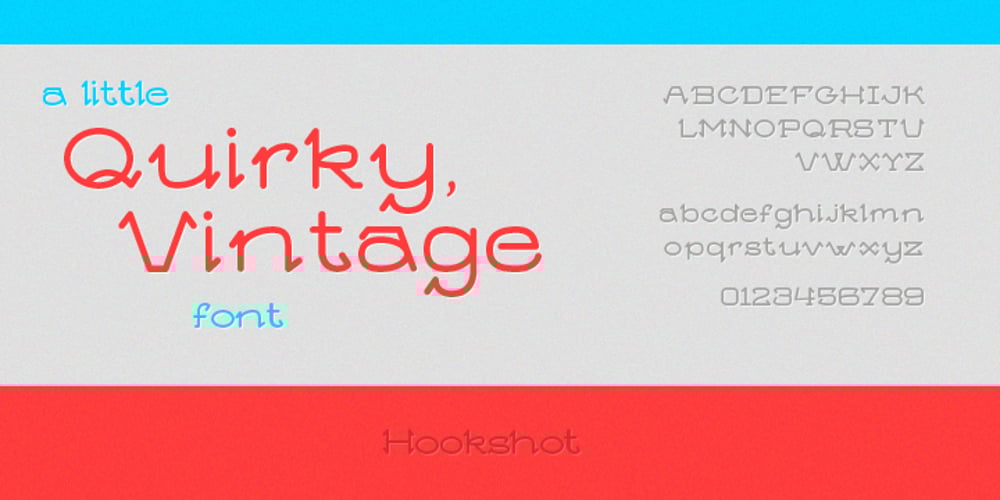
Hookshot
Hookshot font
Hookshot Font Family was designed by Kyle Lambert and published by Callout. Hookshot contains 1 styles and family package options. Hookshot is a quirky serif font font with a retro touch, inspired by an old Canon Word-mark. Hookshot works great for headlines, callouts, and illustrations. It is perfect for short words and even sentences!